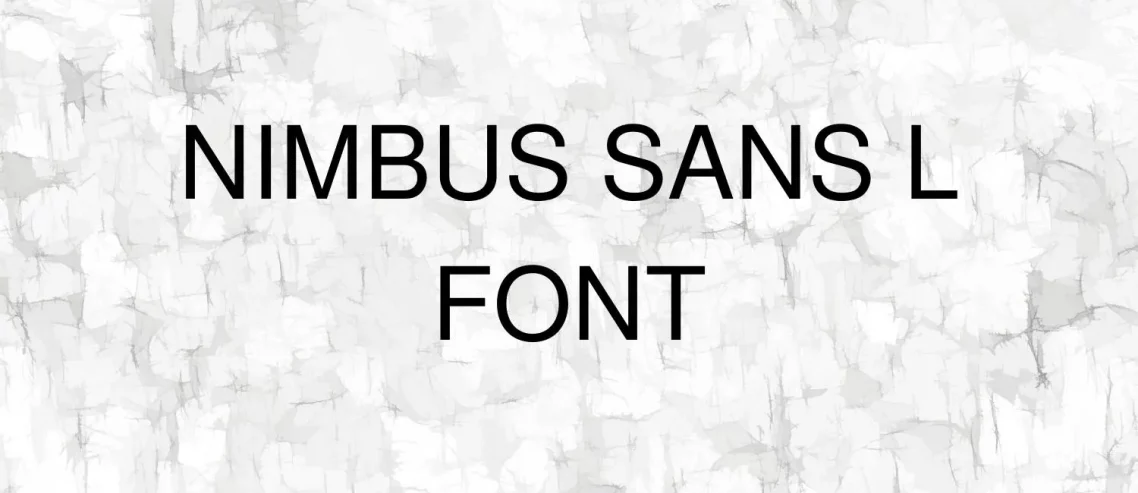
Nimbus San L font is one of the variants of the Nimbus Sans family. It is a sans-serif typeface and you can have it downloaded for free. The font was designed in 1987 by Adobe font sources. Adobe fonts are very well renowned in the field of typography and designing.
Although the characteristics are not precisely similar, Nimbus Sans L is virtually identical to Helvetica Font in terms of its measurements.
- Nimbus Sans L Regular
- Nimbus Sans L Regular Italic
- Nimbus Sans L Bold
- Nimbus Sans L Bold Italic
Nimbus Sans L Font Info
| Name | Nimbus Sans L Font |
| Designer | URW Studio |
| Foundry | URW++ |
| Style | Sans-serif |